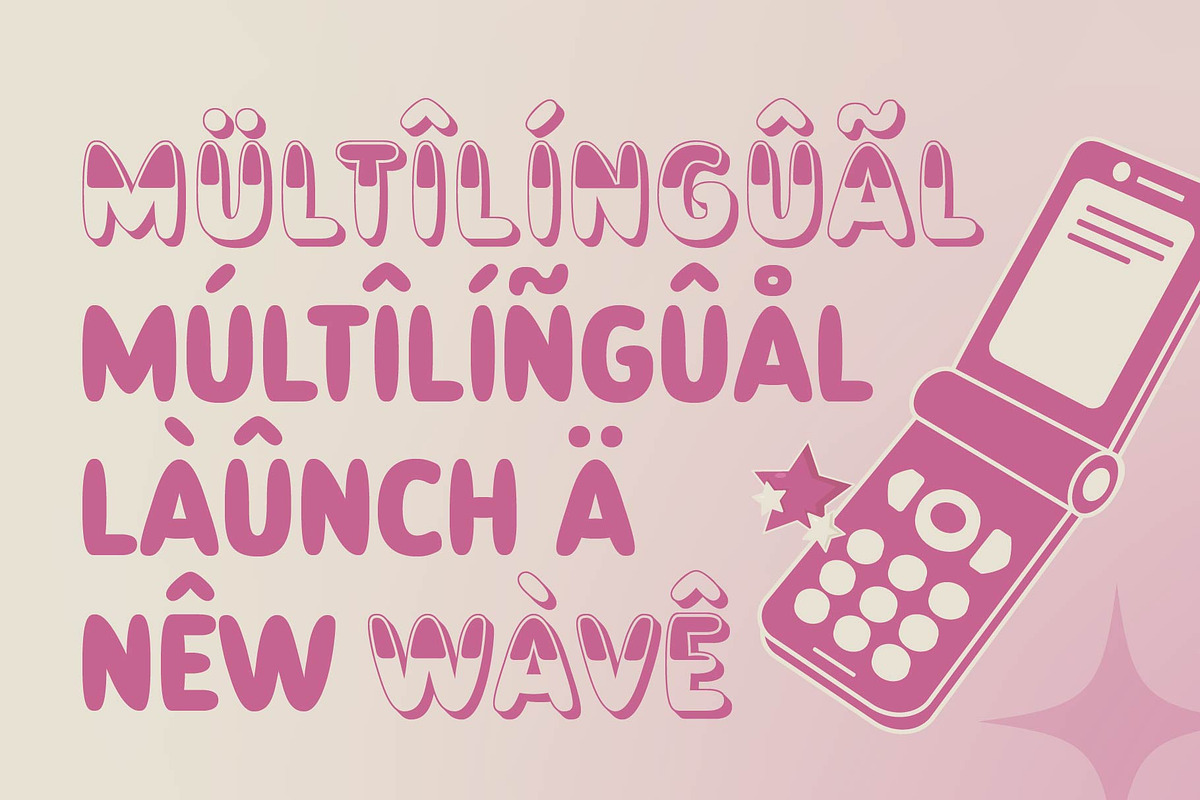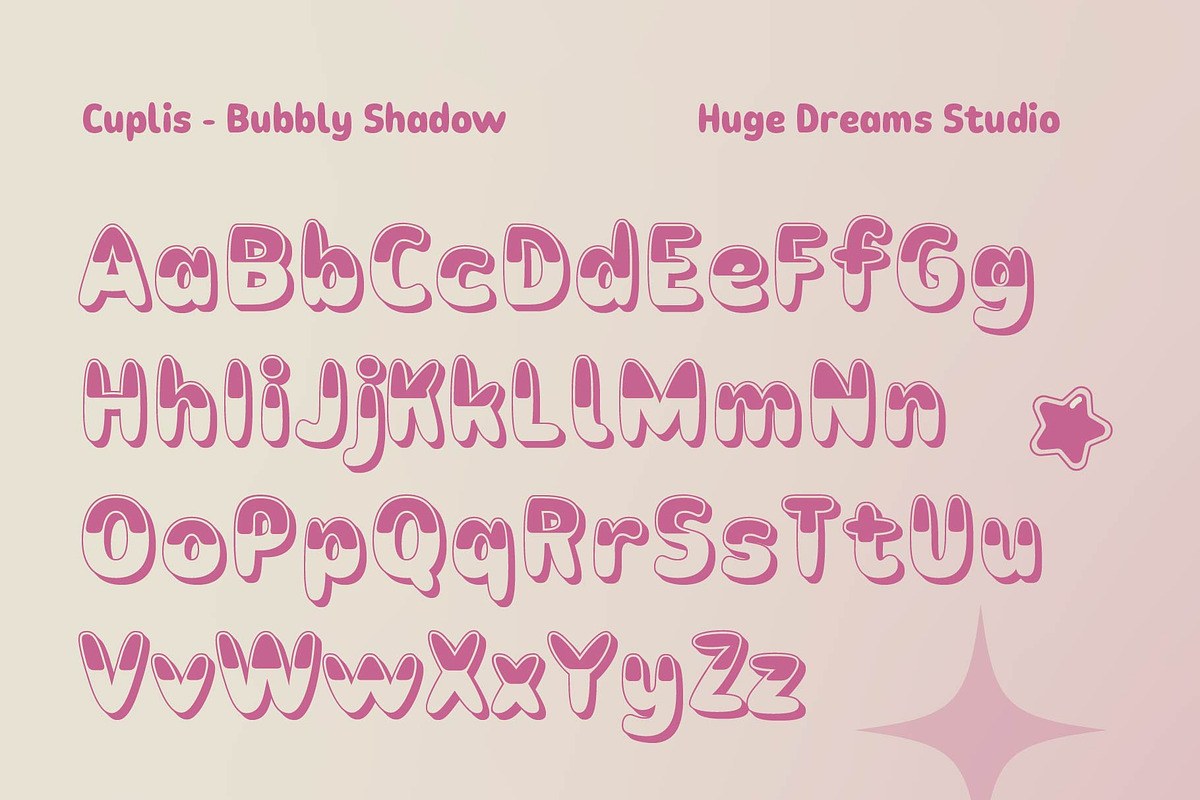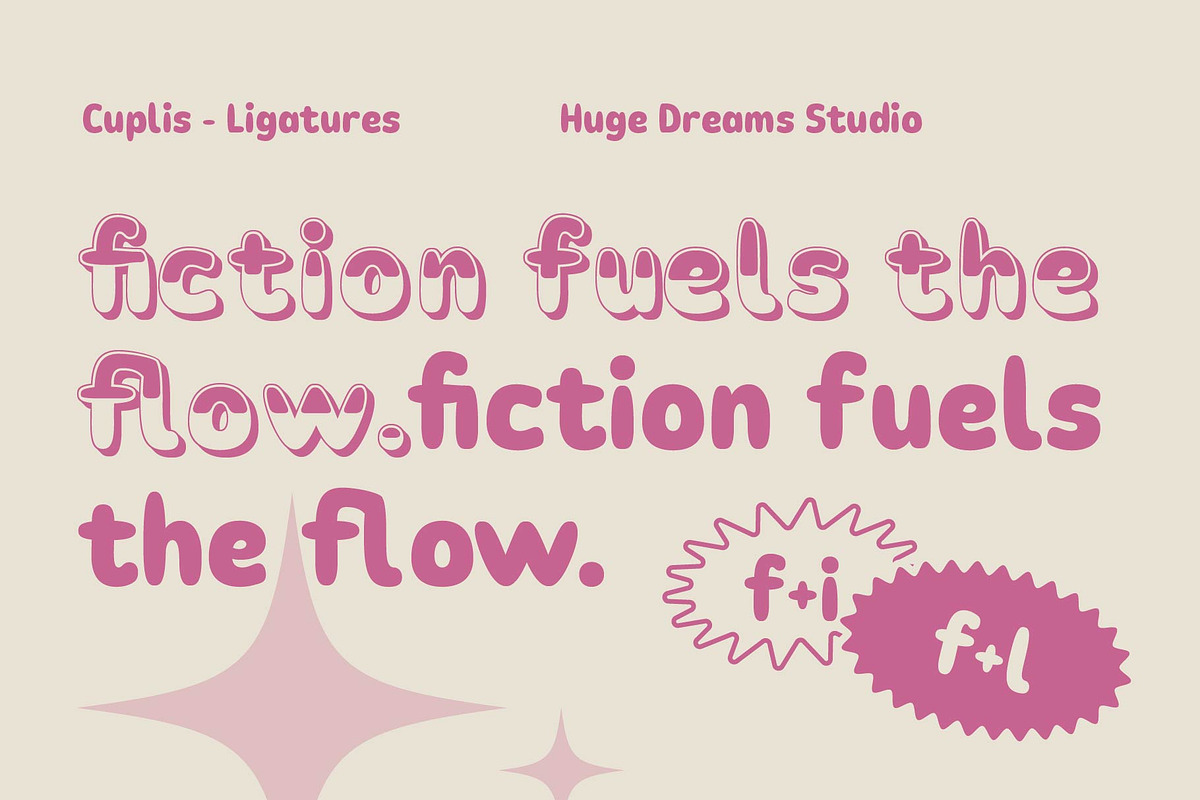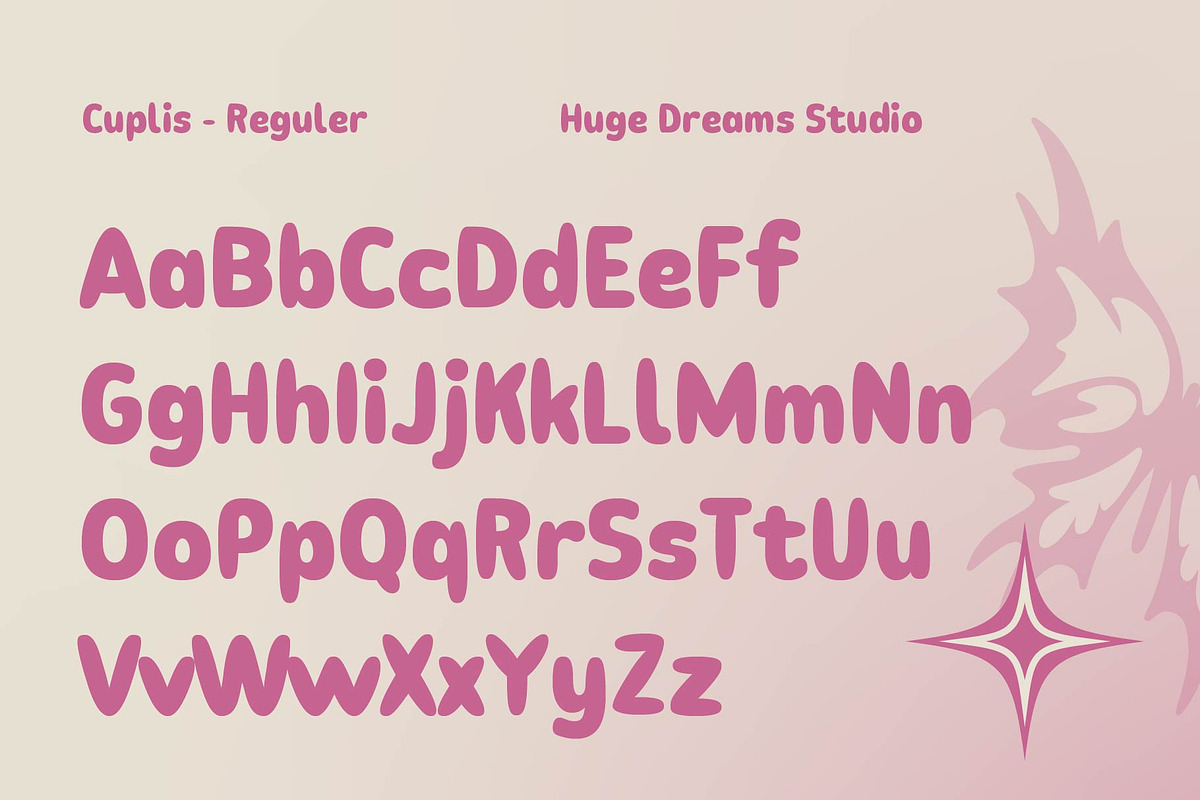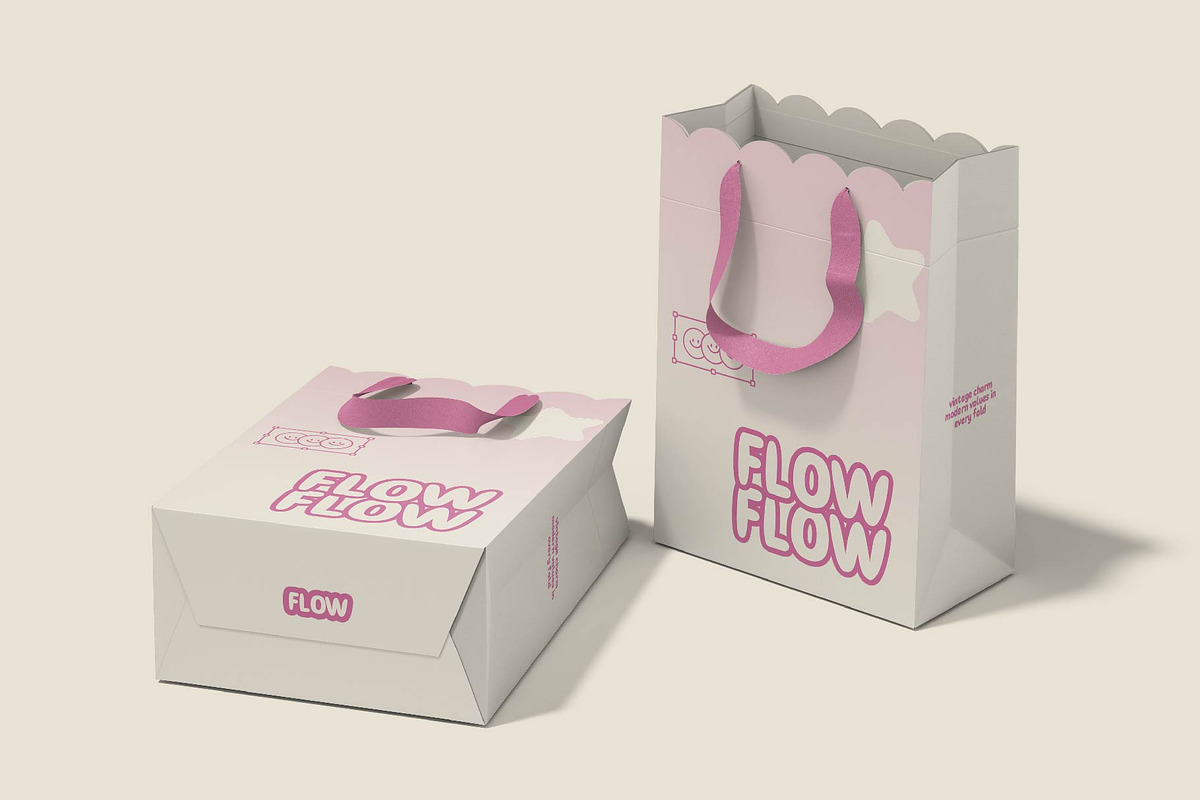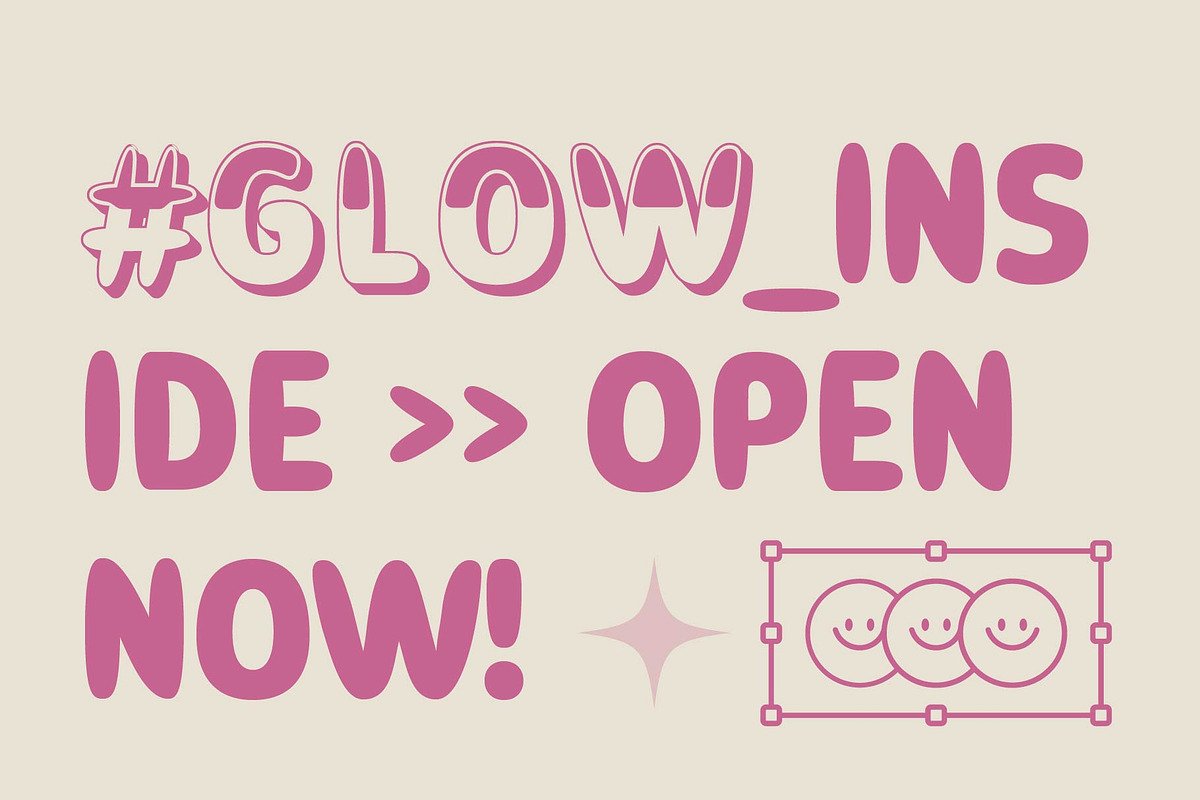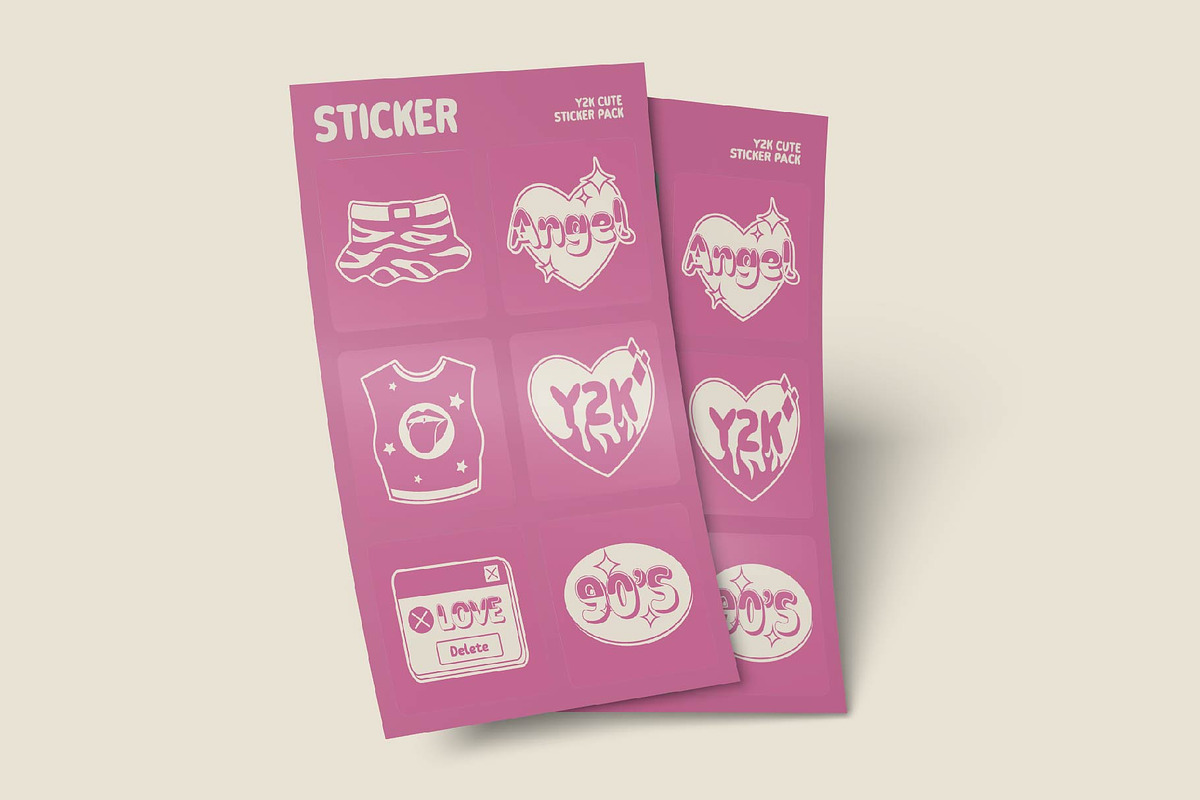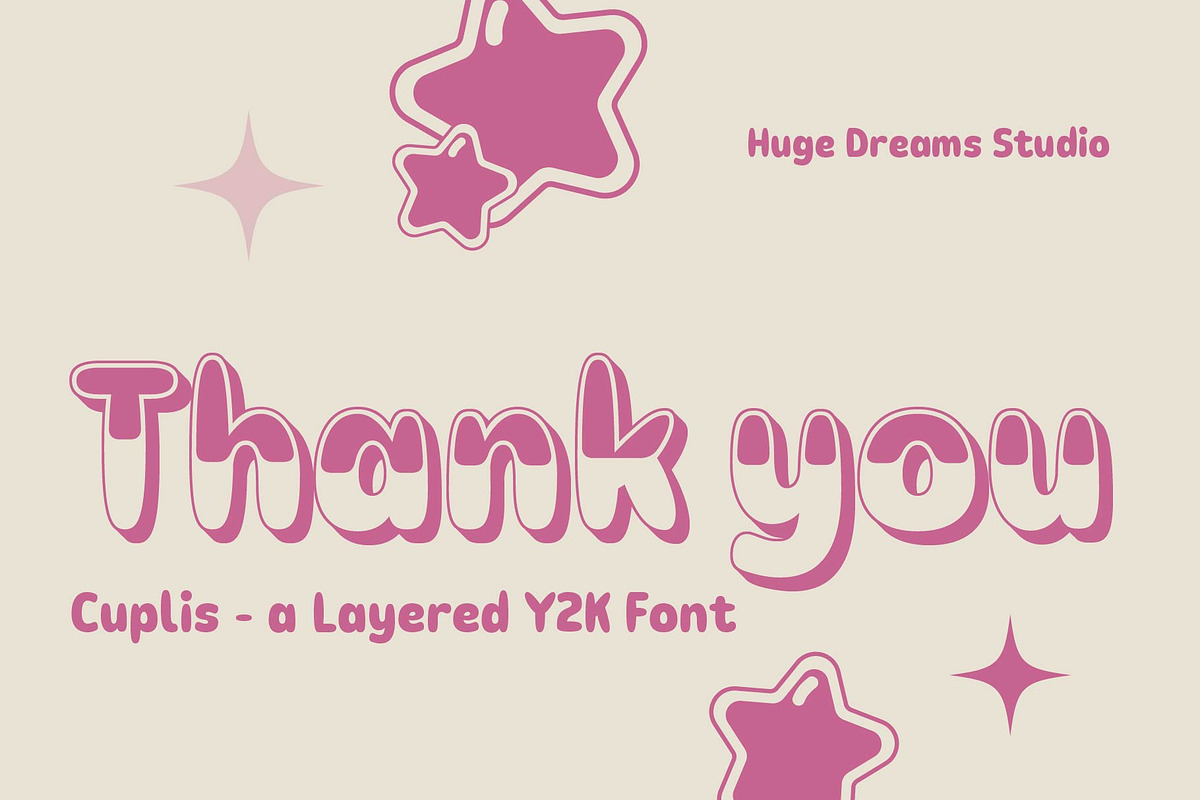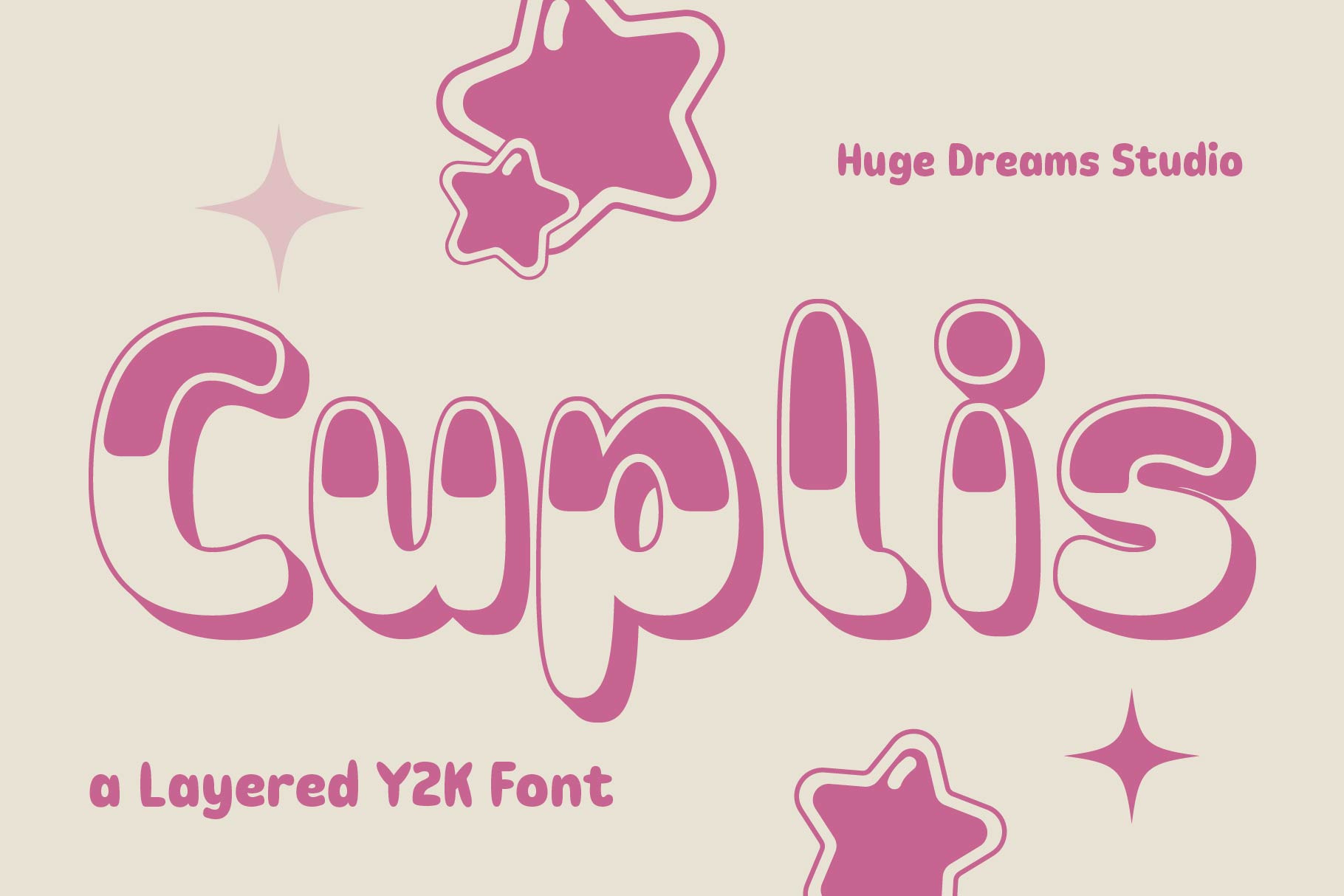
Cuplis - Y2K Handwriting Font
Cuplis - Y2K Handwriting Font brings a playful nostalgic vibe inspired by early 2000s aesthetics. With its casual handwritten strokes and fun retro energy, Cuplis adds a personal touch to any design. Perfect for digital planners, stickers, quotes, branding, social media posts, and creative projects that need a mix of Y2K charm and laid-back handwriting style.
Bring your design back to the early 2000s — bold, quirky, and effortlessly cool with Cuplis.
Cuplis - Y2K Handwriting Fontt features:
- Regular and Bubbly Shadow
- Punctuation & Numbers
Elevate and explore the design possibilities with this Y2K Handwriting Font!